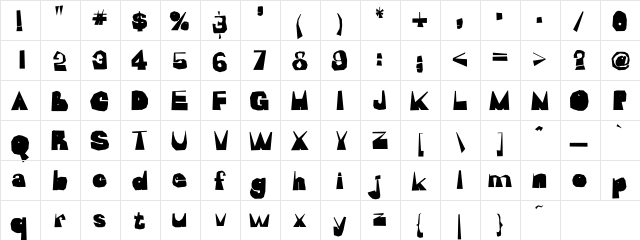
AdLib Regular Font Preview
AdLib Regular
AdLib Regular Font Details
Design Context for AdLib Typeface
AdLib is a composed and adaptable typeface that performs quietly and consistently across a wide range of design contexts.